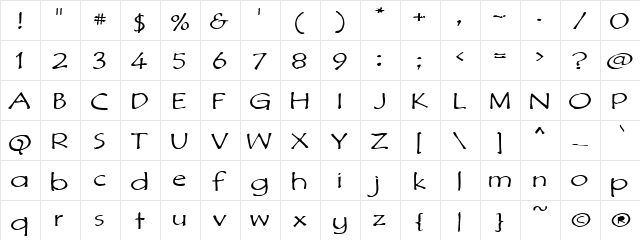
DiMurphic Regular Font Preview
DiMurphic Regular
Design Context for DiMurphic Typeface
DiMurphic is a composed and adaptable typeface that performs quietly and consistently across a wide range of design contexts.